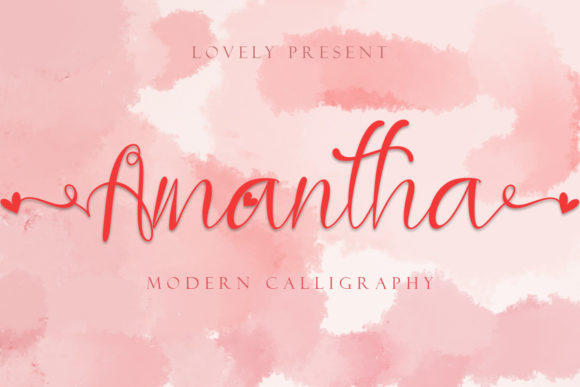
Journey into the realm of elegance with Amantha Font, a captivating script font crafted to ignite romance and evoke dreams. Allow your creativity to flourish as you explore the endless design possibilities, transforming your visions into tangible masterpieces.
With Amantha Font, your wedding invitations and envelopes will radiate an air of timeless beauty, leaving a lasting impression on the hearts of your loved ones. The intricate swirls and delicate flourishes of each letter will narrate your love story in a way that words alone cannot express.
Unleash your imagination and design logos that exude a sense of sophistication and charm. Amantha Font's graceful lines and elegant curves will elevate your designs, capturing the attention of your audience and leaving an indelible mark on their minds.
Embark on a creative expedition, crafting t-shirts that showcase your unique style and personality. With Amantha Font at your disposal, you can create designs that resonate with your spirit, expressing your individuality in a bold and captivating manner.
Elevate your letterheads and signage with the refined beauty of Amantha Font. Its exquisite details and timeless appeal will add a touch of class and professionalism to your business correspondence and promotional materials.
Create labels that exude elegance and distinction, making your products stand out from the rest. Amantha Font will transform ordinary labels into works of art, attracting the attention of potential customers and leaving a lasting impression.
Craft news updates, posters, and badges that captivate and engage your audience. Amantha Font's enchanting aura will draw readers in, ensuring that your messages are conveyed with impact and flair.
With Amantha Font, the possibilities are boundless. Allow your creativity to soar as you explore the depths of your imagination, transforming your designs into captivating works of art.